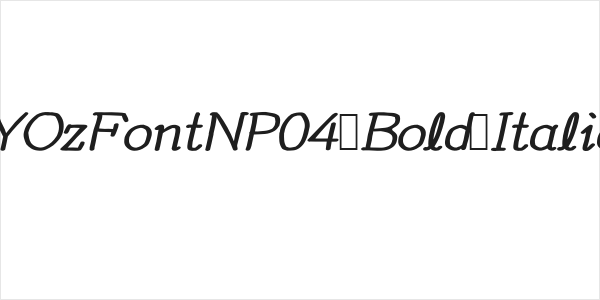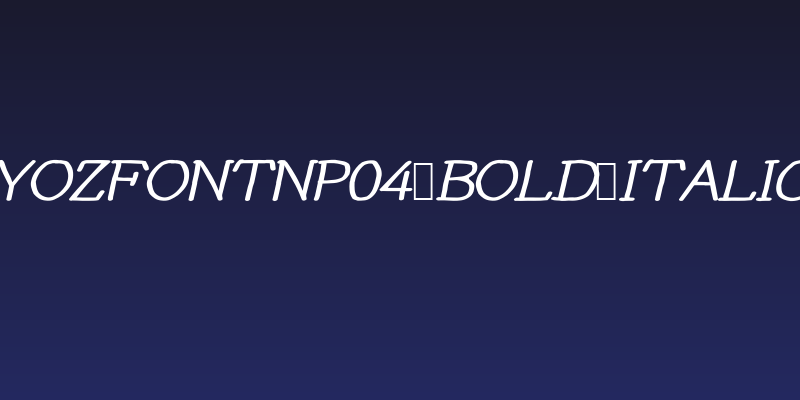
YOzFontNP04 Bold Italic Font
YOzFontNP04 Bold Italic Description
This font features a bold and italic style, characterized by its dynamic and flowing letterforms. The uppercase letters are elegantly slanted, giving a sense of movement and sophistication. The lowercase letters maintain a consistent slant, complementing the uppercase with a harmonious balance. The numerals are clear and bold, ensuring readability while maintaining the overall aesthetic. Special characters are well-integrated, adding versatility to the font's usage. The strokes are moderately thick, providing a strong presence without overwhelming the design.